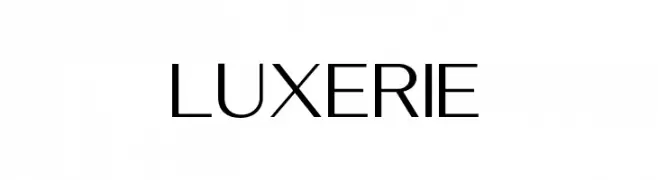
A playful, cartoon-like font with bold, expressive characters featuring unique facial elements.
A playful, cartoonish font with quirky, decorative characters.
A clean, modern sans-serif font with balanced proportions and excellent readability.
A bold, modern sans-serif font with excellent legibility and balance.
A bold slab serif font with strong, block-like serifs and a modern classic feel.
A bold, playful font with a hand-drawn, whimsical style.
A modern, geometric sans-serif font with clean lines and uniform strokes.
A modern sans-serif font with clean lines and a minimalist style.
A bold, monospaced font with a modern yet classic style, ideal for coding and headings.